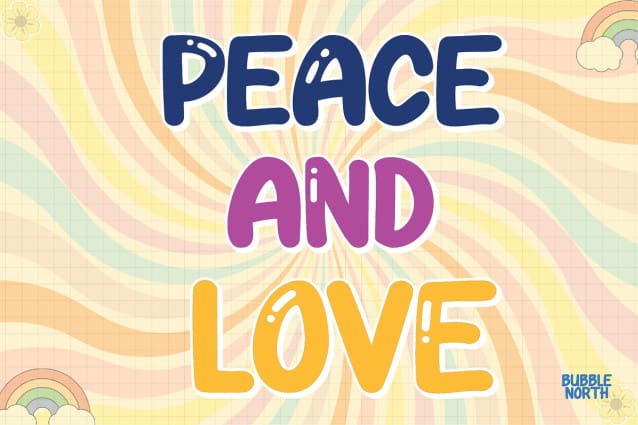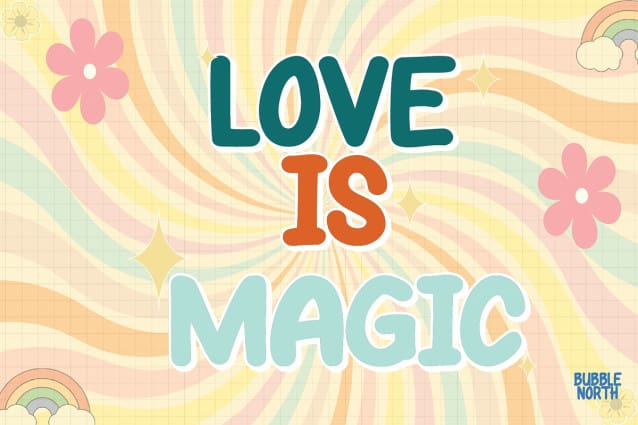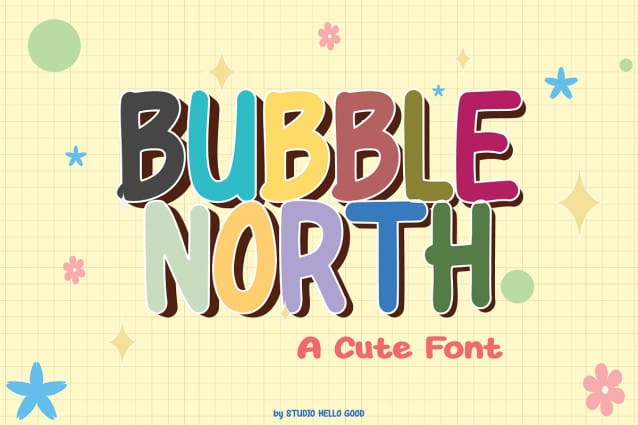
Bubble North Font
Bubble North Font is a cartoon sans serif font type, this font is the result of handwriting which is written with care so that it can be used by all designers, so that it looks natural and is suitable for the project you are working on. This font is actually suitable for you to use as designs for stickers, comics, films, flyers and so on. You should have this font for your collection and additional fonts on your device.